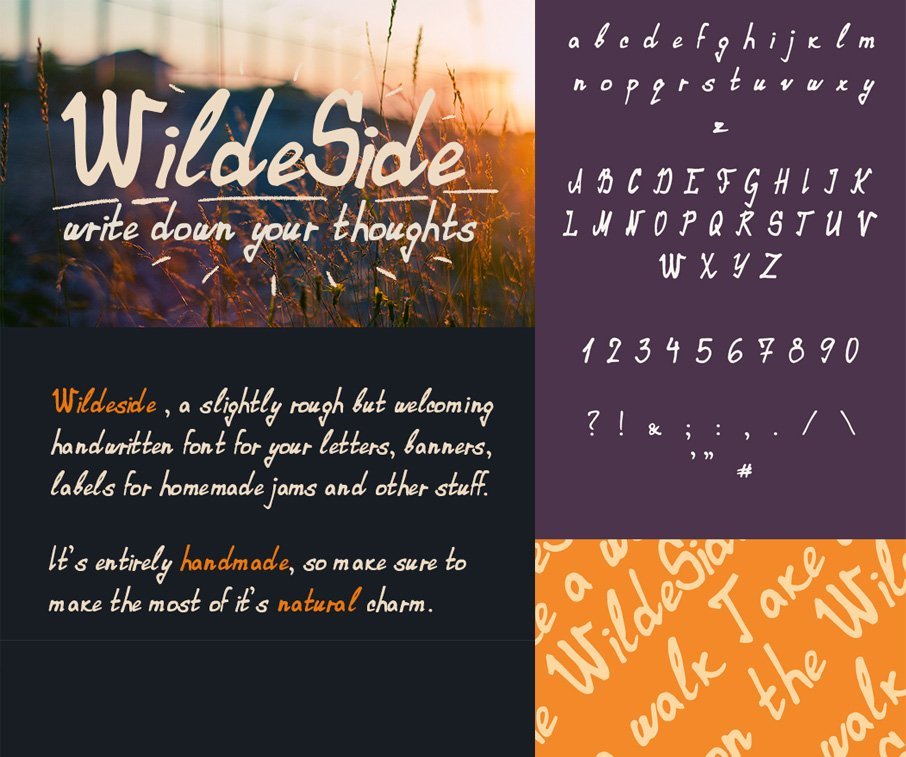
Are you looking for a free handwritten font to add a natural touch to your projects?
This free font is slightly rough but a welcoming free handwritten font named WildeSide.
This free font can enhance the appearance of your writings and make your project work shine.
- Free Handwritten Font